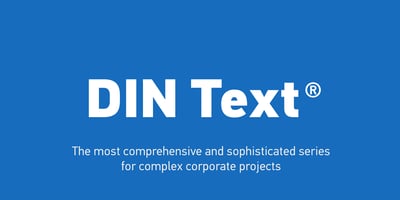
PF DIN Text Font Family was designed by Panos Vassiliou and published by Parachute. PF DIN Text contains 102 styles and family package options. The purpose of the original DIN 1451 standard was to lay down a style of lettering which is timeless and easily legible. Unfortunately, these early letters lacked elegance and were not properly designed for typographic applications. Ever since its first publication in the 1930’s, several type foundries adopted the original designs for digital photocomposition. By early 2000, it became apparent that the existing DIN-based fonts did not fulfil the ever-increasing demand for a diverse set of weights and additional support for non-Latin languages. Parachute® was set out to fill this gap by introducing the PF DIN series which has become ever since the most comprehensive and sophisticated set of DIN typefaces. It was based on the original standards but was specifically designed to fit typographic requirements. Its letterforms divert from the stiff geometric structure of the original and introduce instead elements which are familiar, softer and easier to read. The first set of fonts was completed in 2002 as a group of 3 families which included condensed and compressed versions. With its vast array of weights, the extended language support, but most of all its meticulous and elaborate design, it has proved itself valuable to numerous design agencies around the world. Ever since its first release, it has been used in diverse editorials, packaging, branding and advertising campaigns as well as a great number of websites. It was quoted by Publish magazine as being “an overkill series for complex corporate identity projects”. The whole PF DIN Text type system (with normal, condensed and compressed styles) includes 45 weights from Hairline to Extra Black including true-italics. Additionally, every font in the Pro series is powered by 270 very useful symbols for packaging, environmental graphics, signage, transportation, computing, fabric care. There are 2 versions to choose from: The PRO version is the most powerful. All weights support Latin, Cyrillic, Greek, Central/Eastern European, Romanian, Baltic and Turkish, with 20 advanced opentype features including small caps. The standard STD version is more economic. All weights support Latin, Central/Eastern European, Romanian, Baltic and Turkish, with 18 advanced opentype features including small caps. In 2010 Parachute® released 4 new families DIN Monospace, DIN Stencil, DIN Text Arabic and DIN Text Universal. All these are complemented by the popular DIN Display version. Altogether the Parachute DIN series is a set of 8 superfamilies with a total of 96 weights.